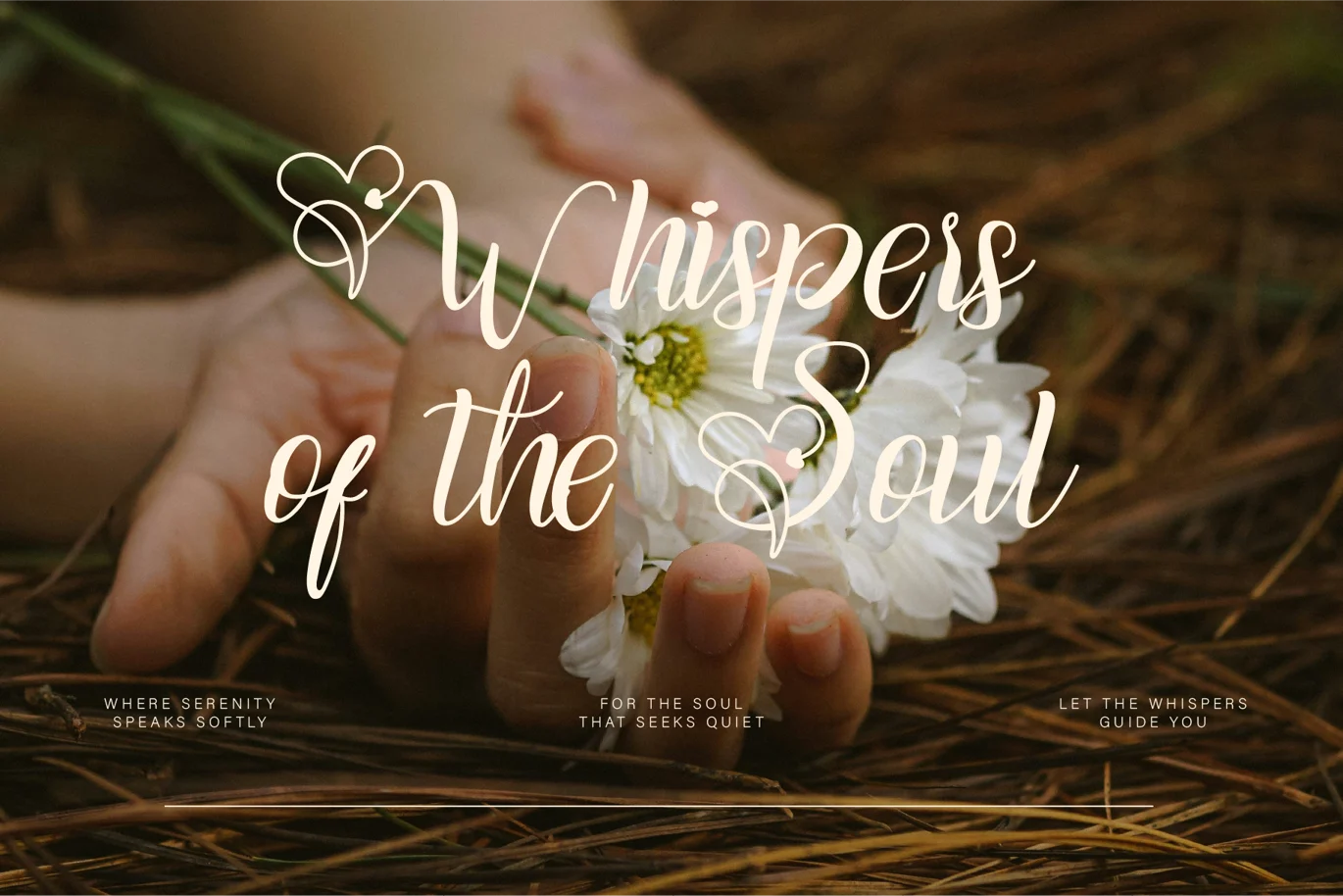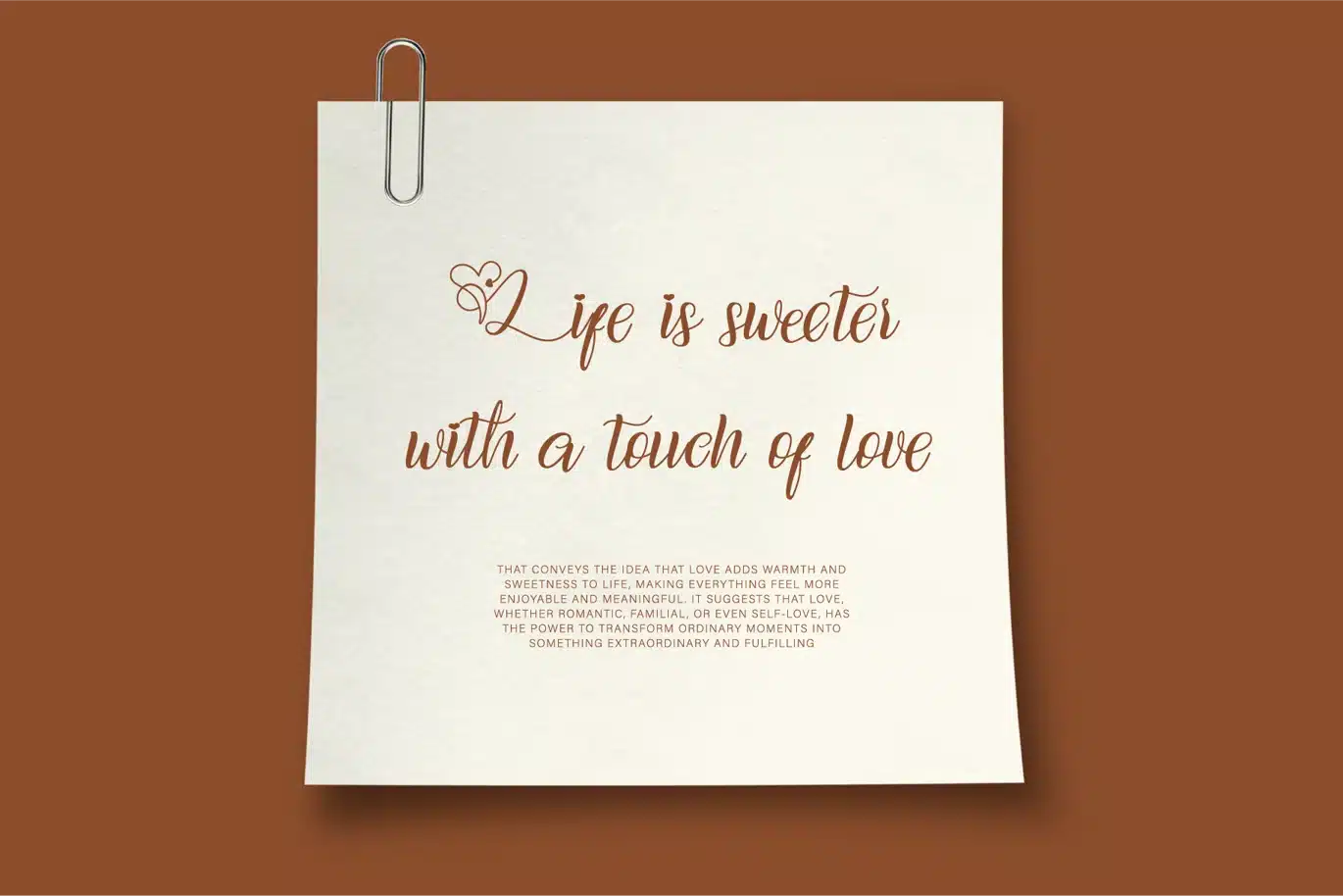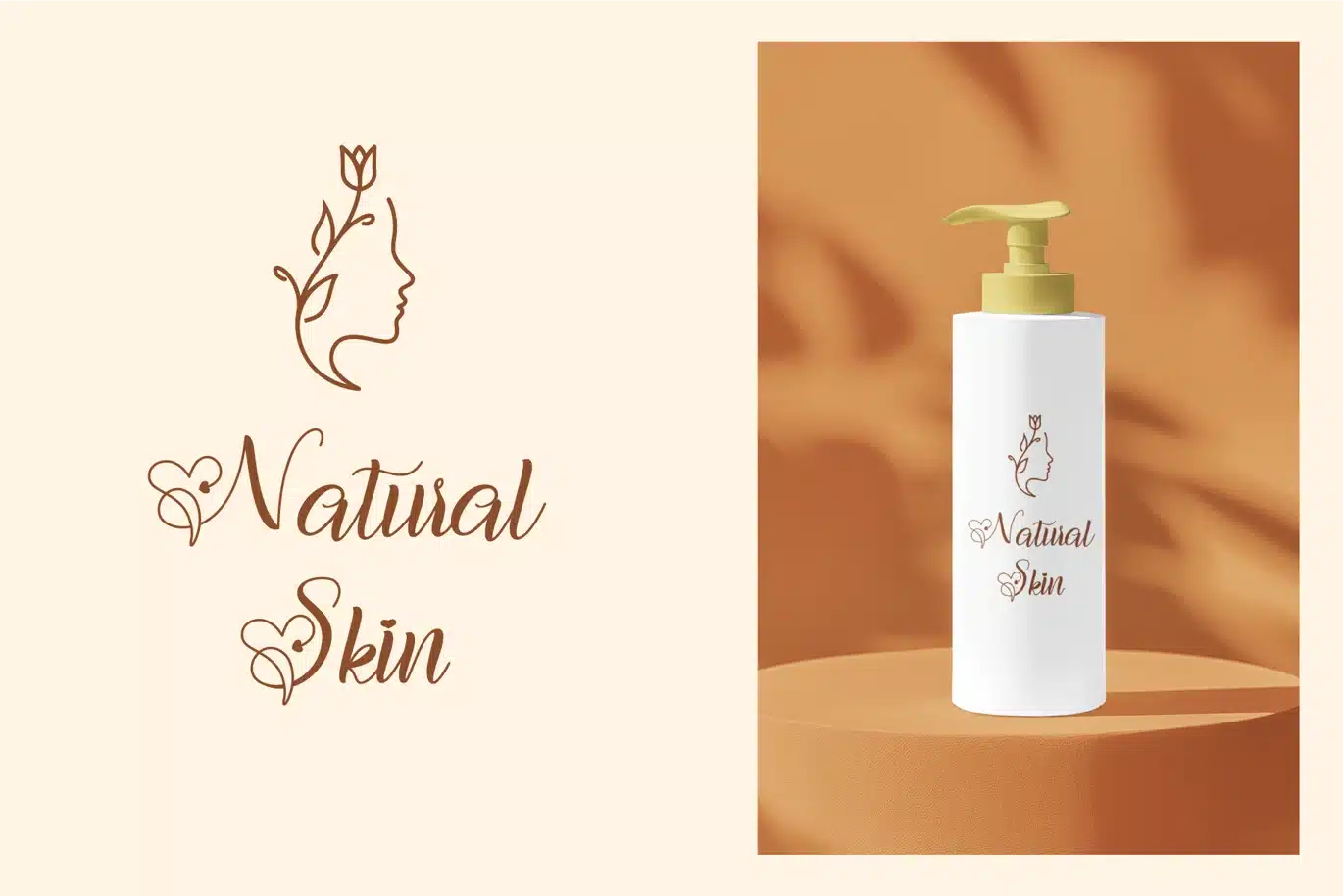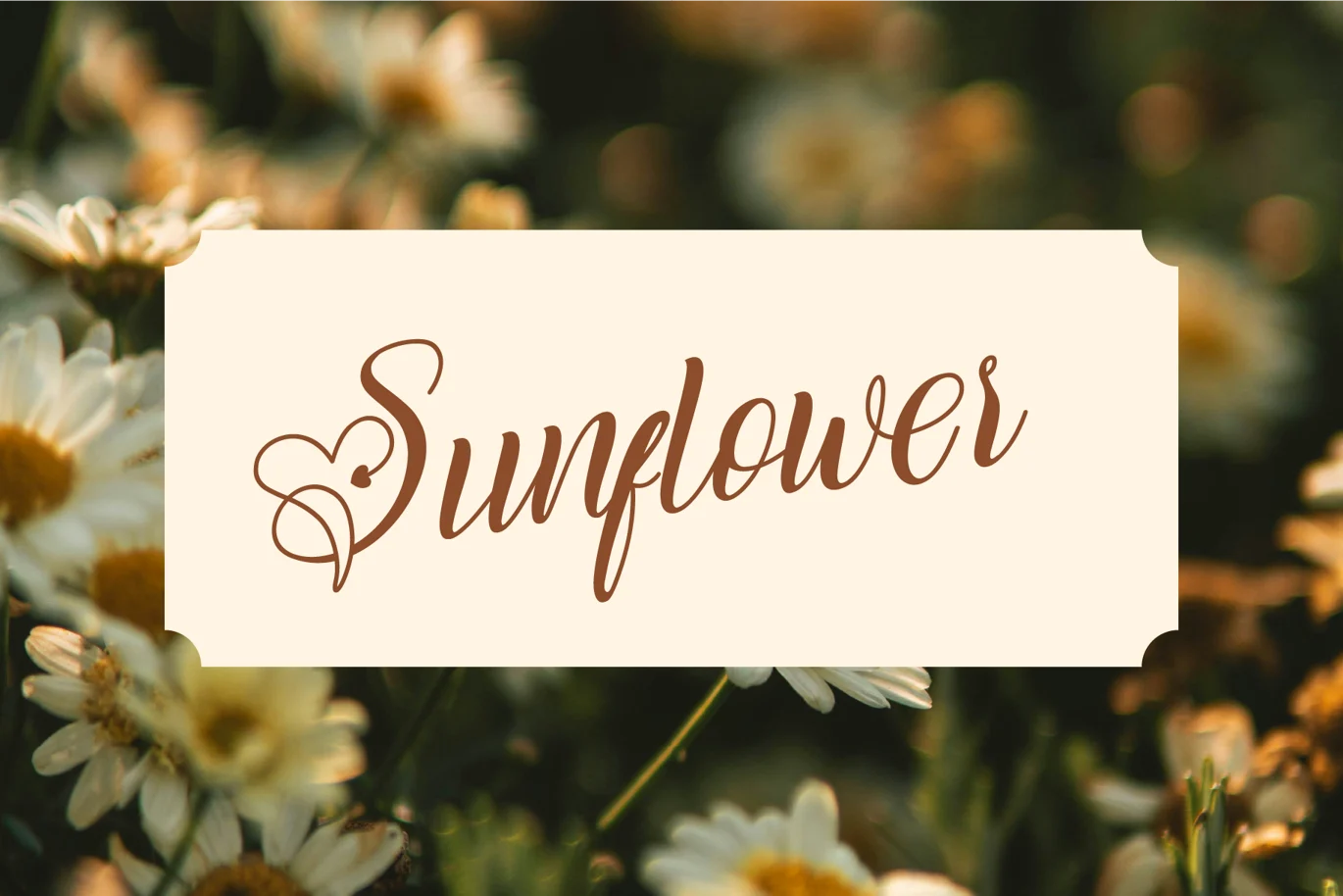
Belloera is an elegant and sophisticated script font that exudes timeless charm and grace. Its smooth, flowing curves and refined letterforms create a sense of luxury, making it perfect for upscale branding, invitations, and high-end design projects.